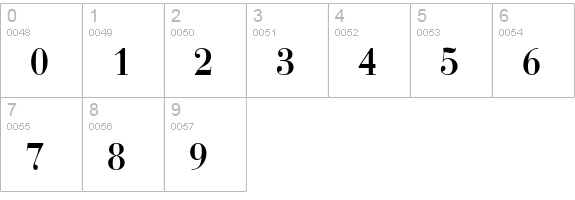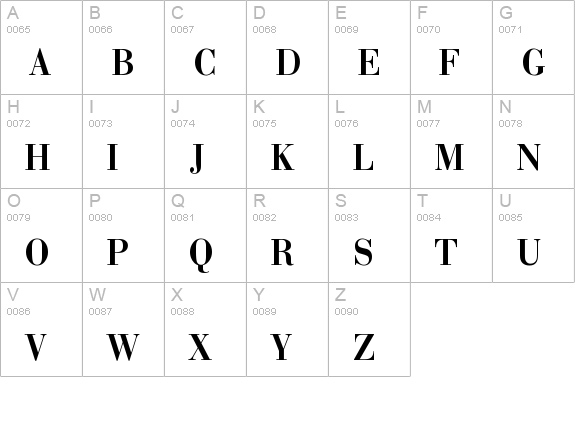
RothniCnd-Bold Font Details
RothniCnd-Bold is a strong, high-contrast variant in the RothniCnd typeface family \xE2\x80\x94 well suited to headlines, attention-grabbing titles, and strong calls-to-action.
RothniCnd-Bold font is a bold and eye-catching typeface that exudes a sense of strength and modernity. Its sleek design and sharp edges make it perfect for headlines, titles, and branding projects that demand attention. The font features clean lines and a unique style that sets it apart from other fonts. What makes RothniCnd-Bold font even more appealing is that it is available for free download at FontsMarket.com. This means that you can easily access this stylish font and use it in your projects without any cost. Whether you're working on a graphic design project, creating a logo, or designing a poster, RothniCnd-Bold font is sure to make a statement and elevate your work to the next level. Download it now and add a touch of sophistication and flair to your designs!